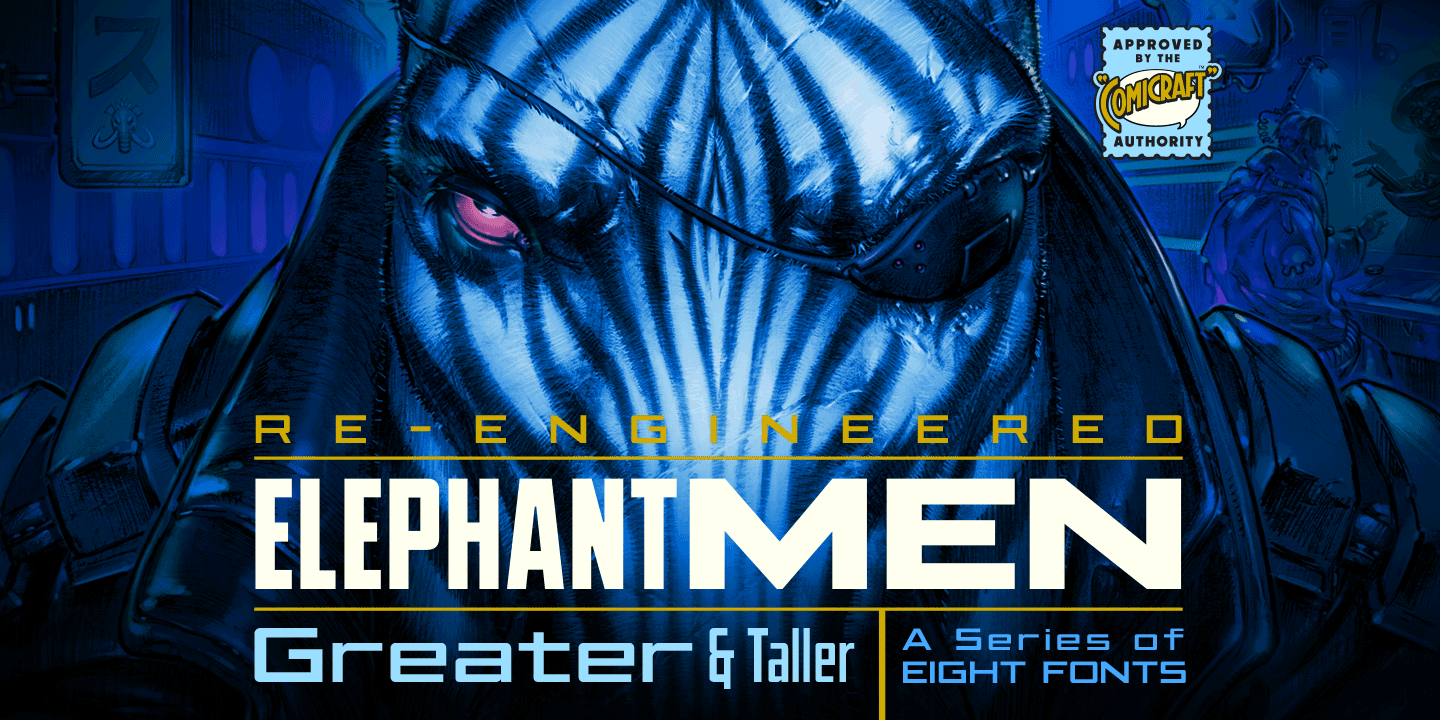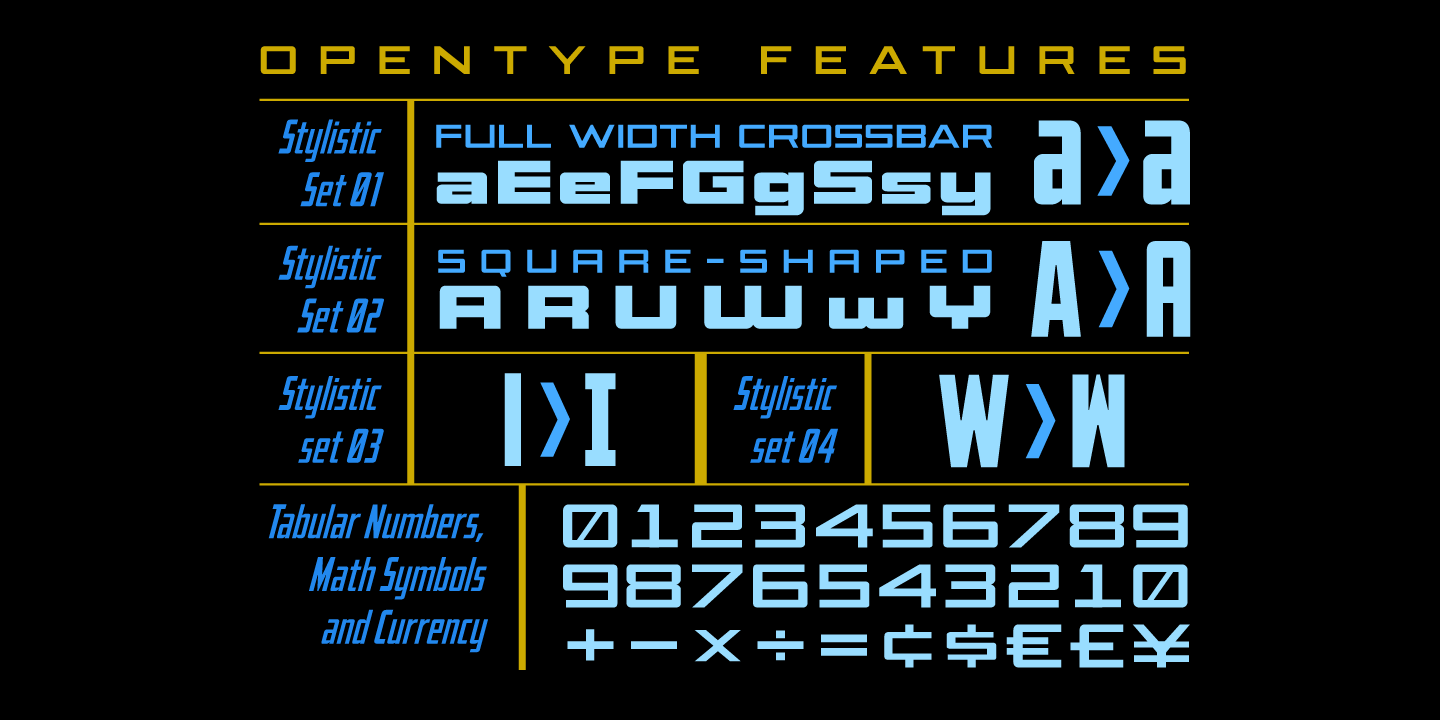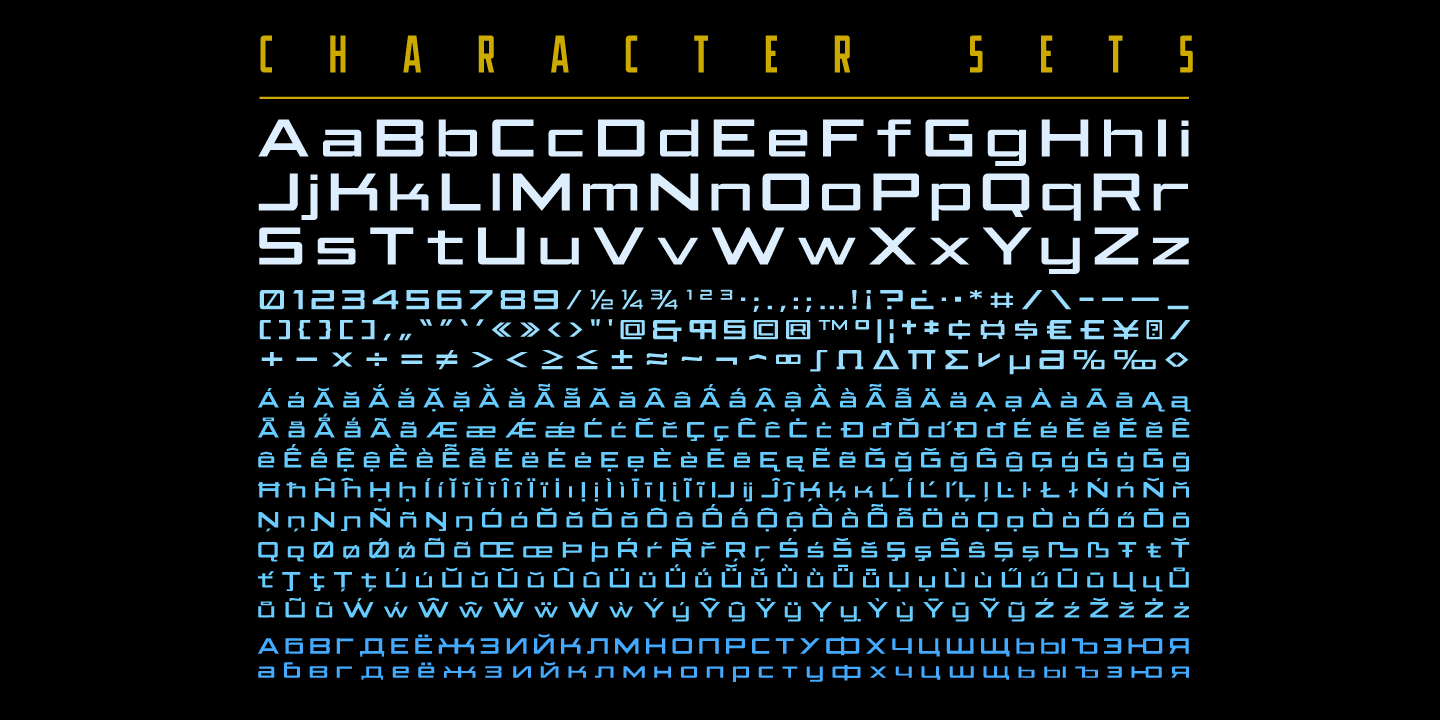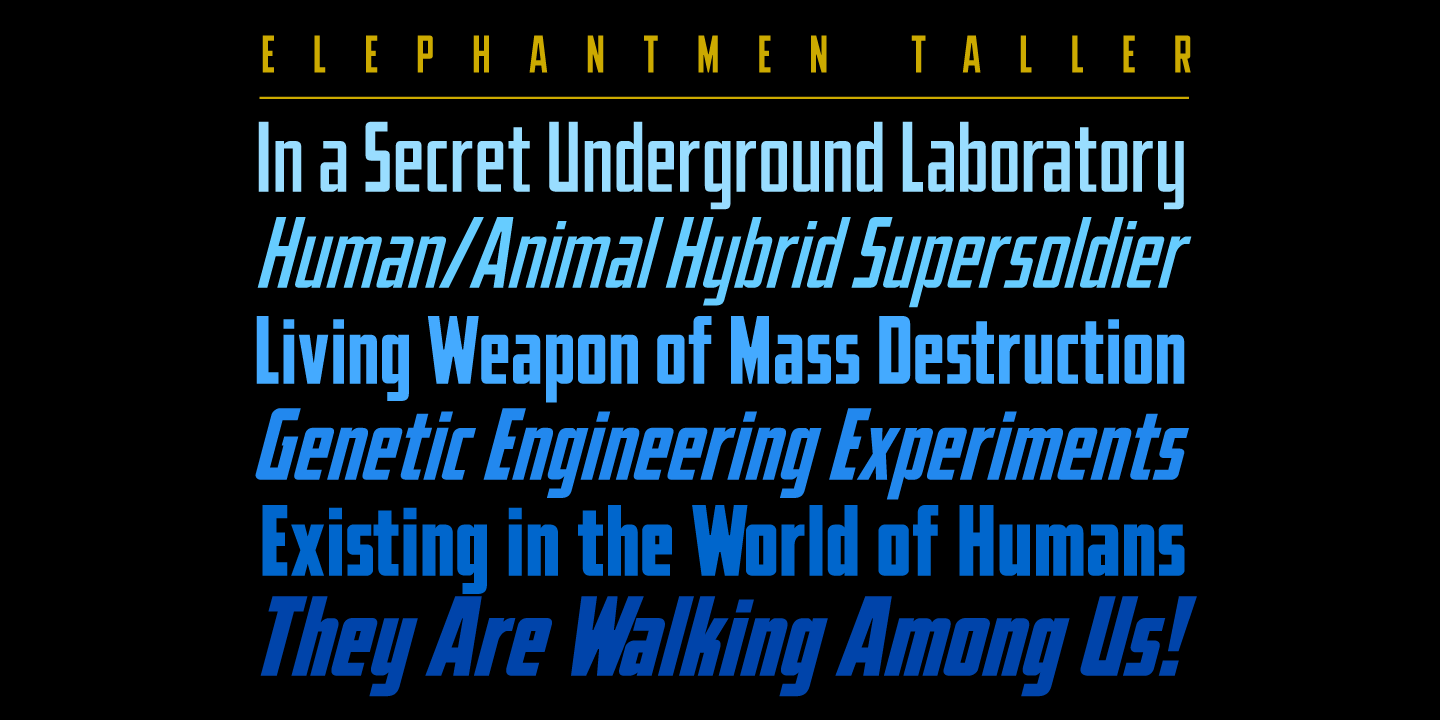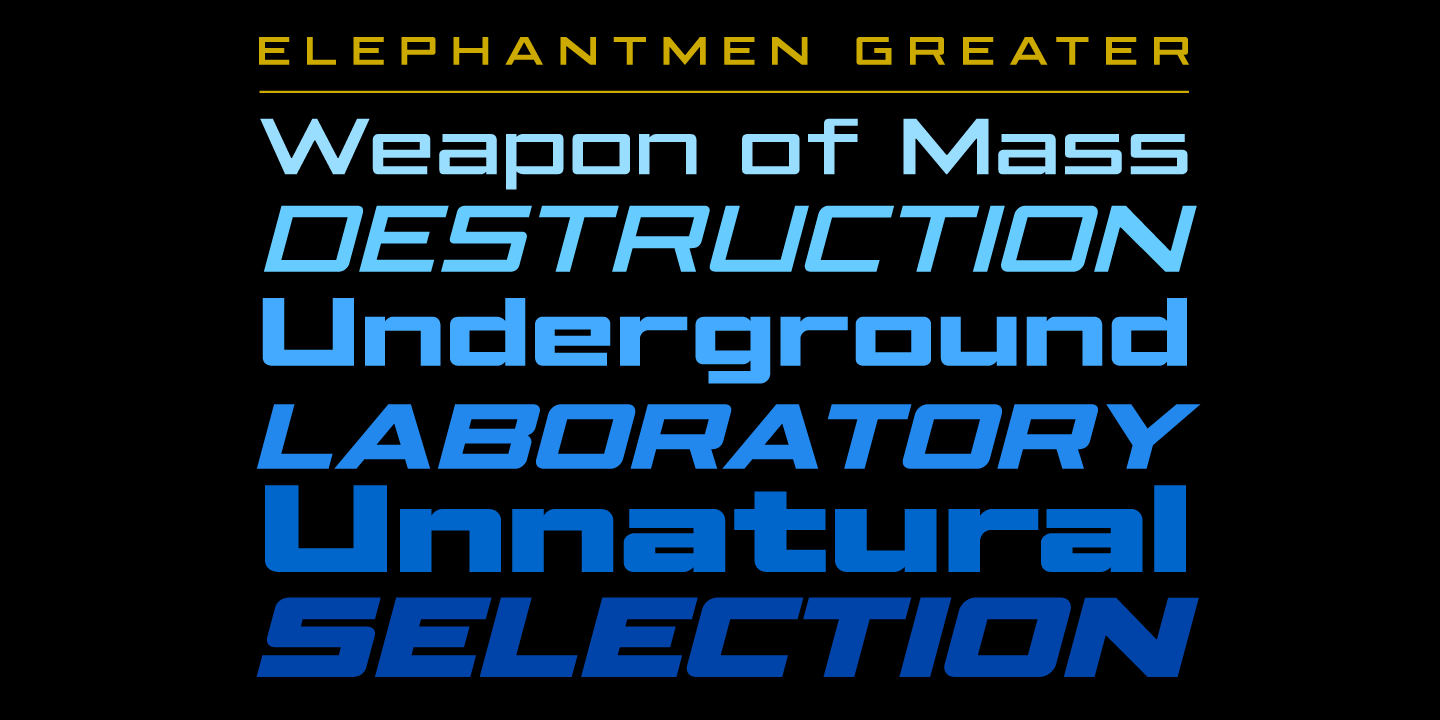
Elephantmen Greater & Taller
Font Family by Comicraft Fonts
During the gold rush, the phrase 'Seeing the elephant' became synonymous with the high cost of each prospector's dreams and hopes --- not only the prospect of wealth beyond the dreams of avarice in California but also the possibilities of encountering misfortune on the journey. Like the circus elephant, gold was an exotic sight, and seeking it was an unequalled experience, the adventure of a lifetime.
Now we've created a font much like the skin of an Elephant, and Adventure, Excitement and Really Wild Things are available in the pages of the comic book of the same name, ELEPHANTMEN.